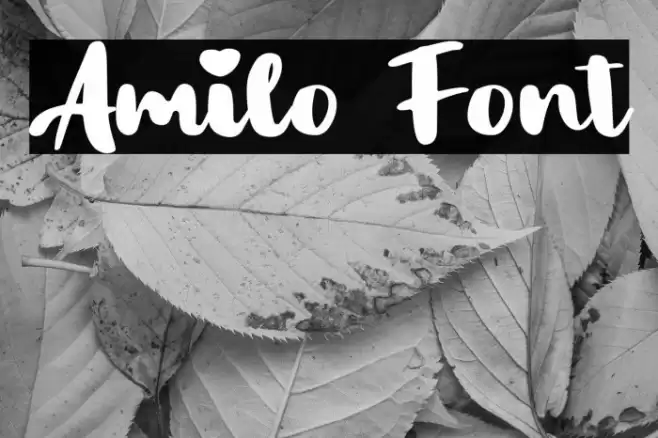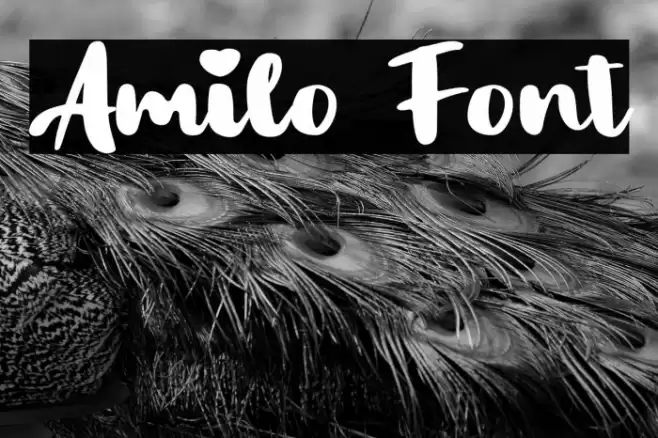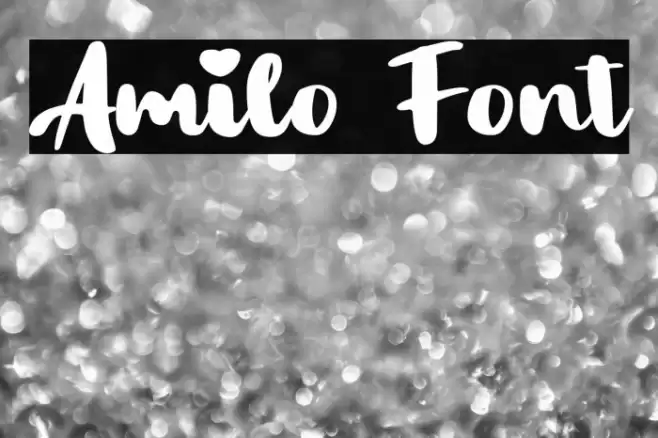
Amilo Font
Amilo Description
This font features a bold and expressive script style with a handwritten appearance. The uppercase letters are characterized by their fluid, sweeping strokes, while the lowercase letters maintain a consistent flow with a playful touch. The font exhibits a strong presence with its thick lines and rounded edges, creating a friendly and approachable look. The absence of special characters and numbers suggests a focus on alphabetic expression. This font is ideal for creative projects that require a personal and informal touch.
A bold, handwritten script font with a playful and expressive style from Regular fonts.
- Proposed Projects: Perfect for greeting cards, invitations, logos, and branding materials that seek a personal and informal touch.
- Use Case: Logos, Headlines, Invitations